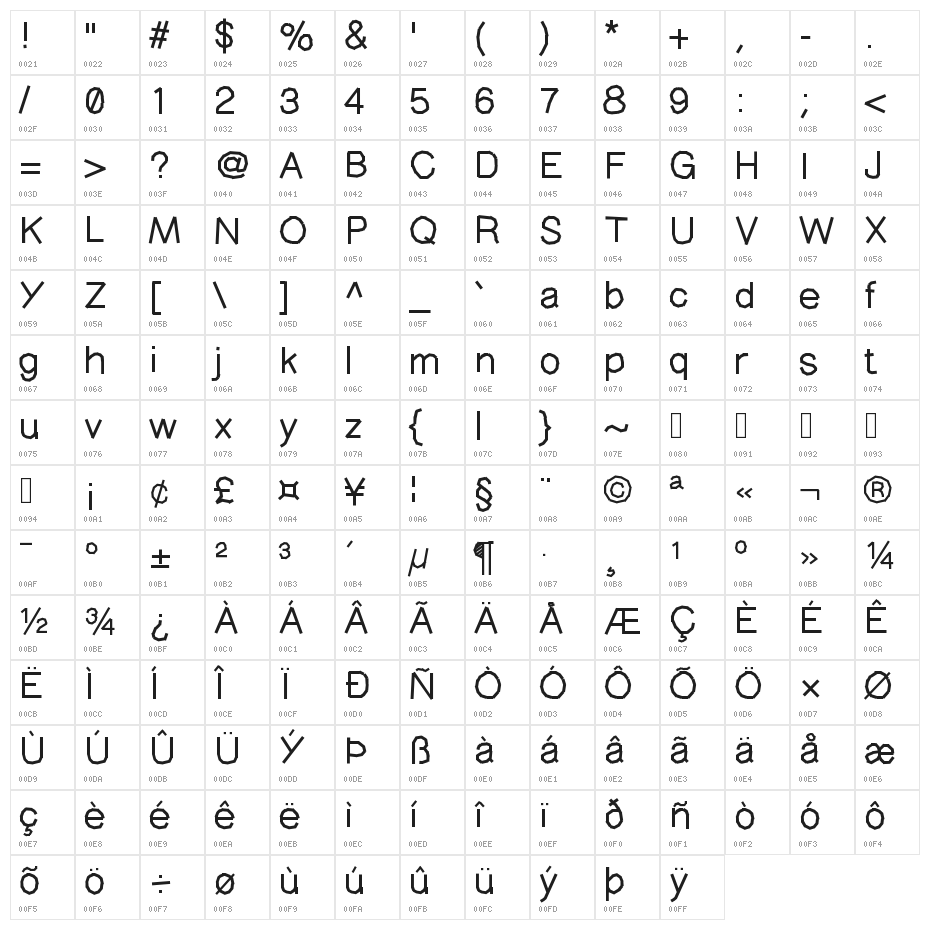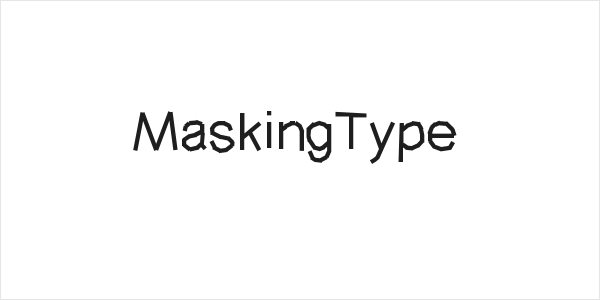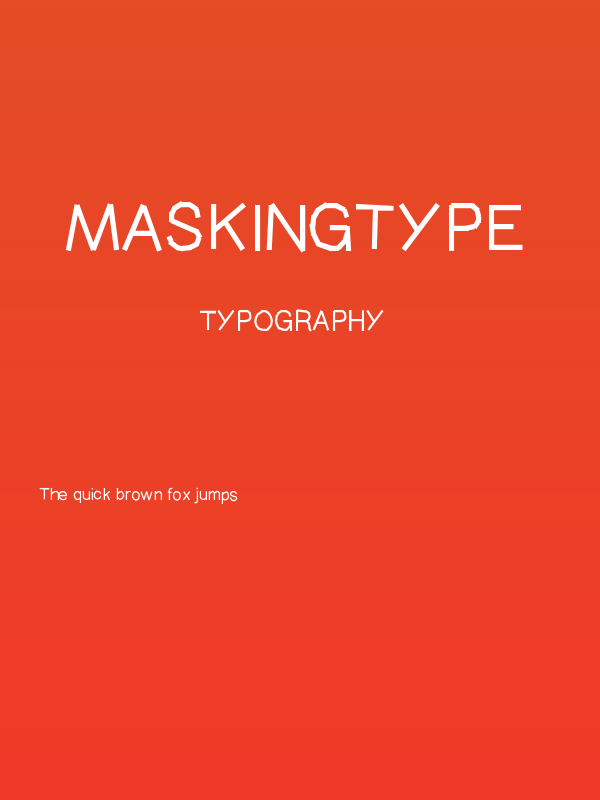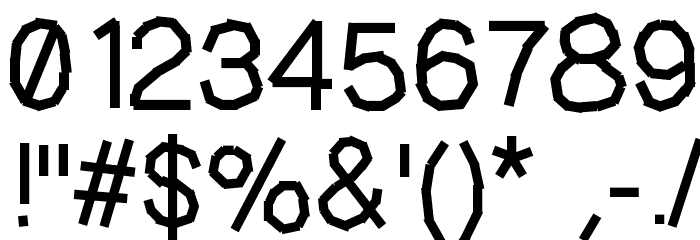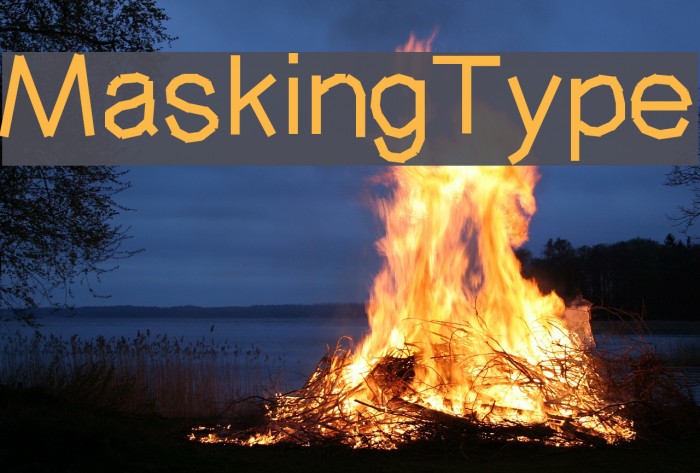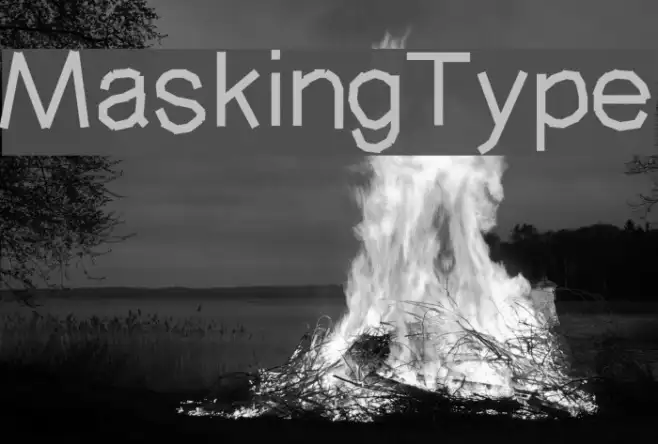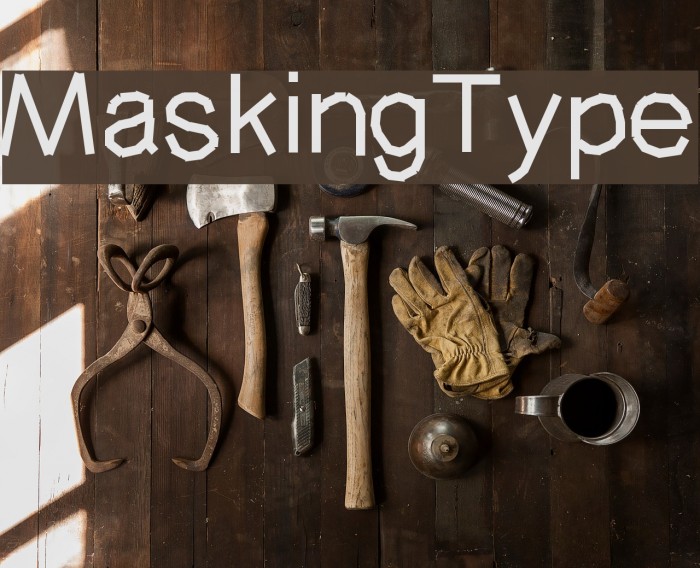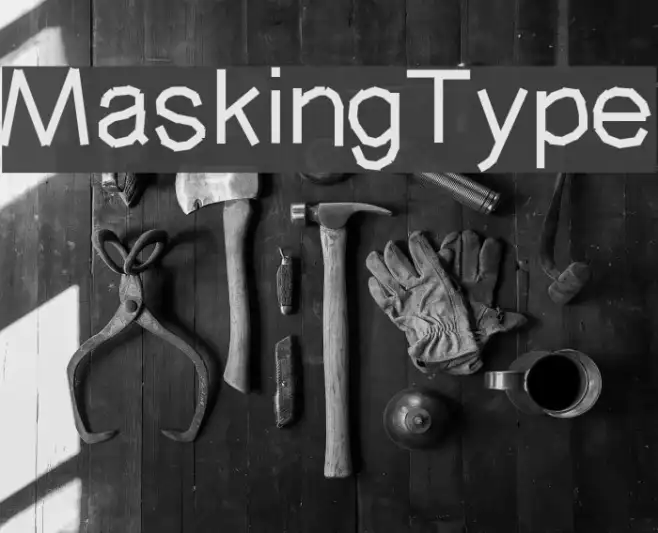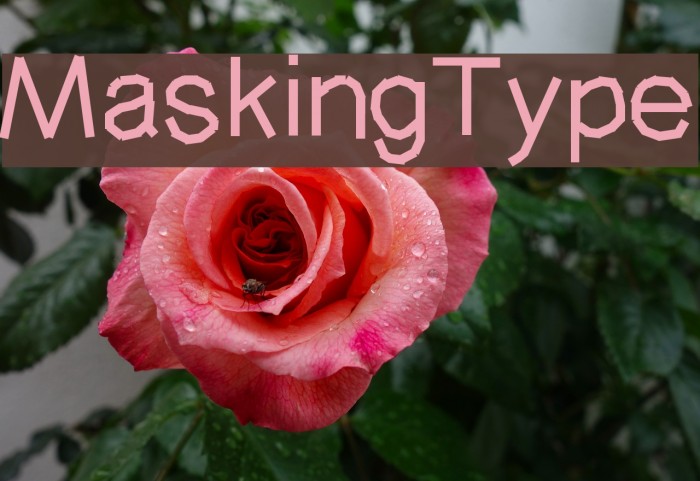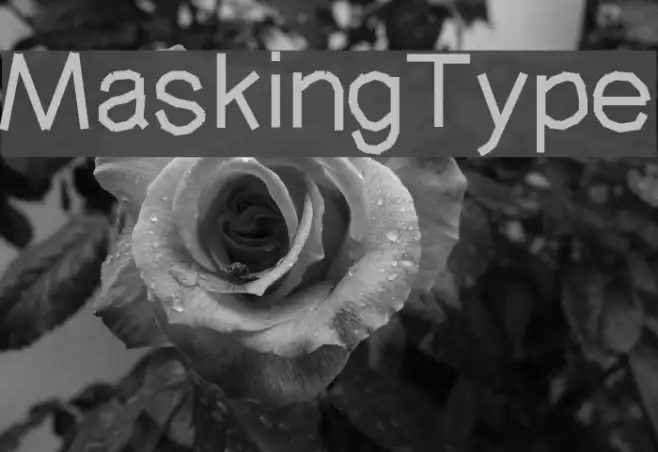
MaskingType Font
MaskingType Description
This font features a geometric and angular design with a modern aesthetic. The characters are constructed with straight lines and sharp angles, giving it a distinct, edgy appearance. The uppercase letters are bold and commanding, while the lowercase letters maintain a consistent style with slightly softer edges. The numerals are clear and legible, matching the overall geometric theme. Special characters are well-integrated, maintaining the font's cohesive look. This font's unique style makes it suitable for projects that require a modern and bold statement.